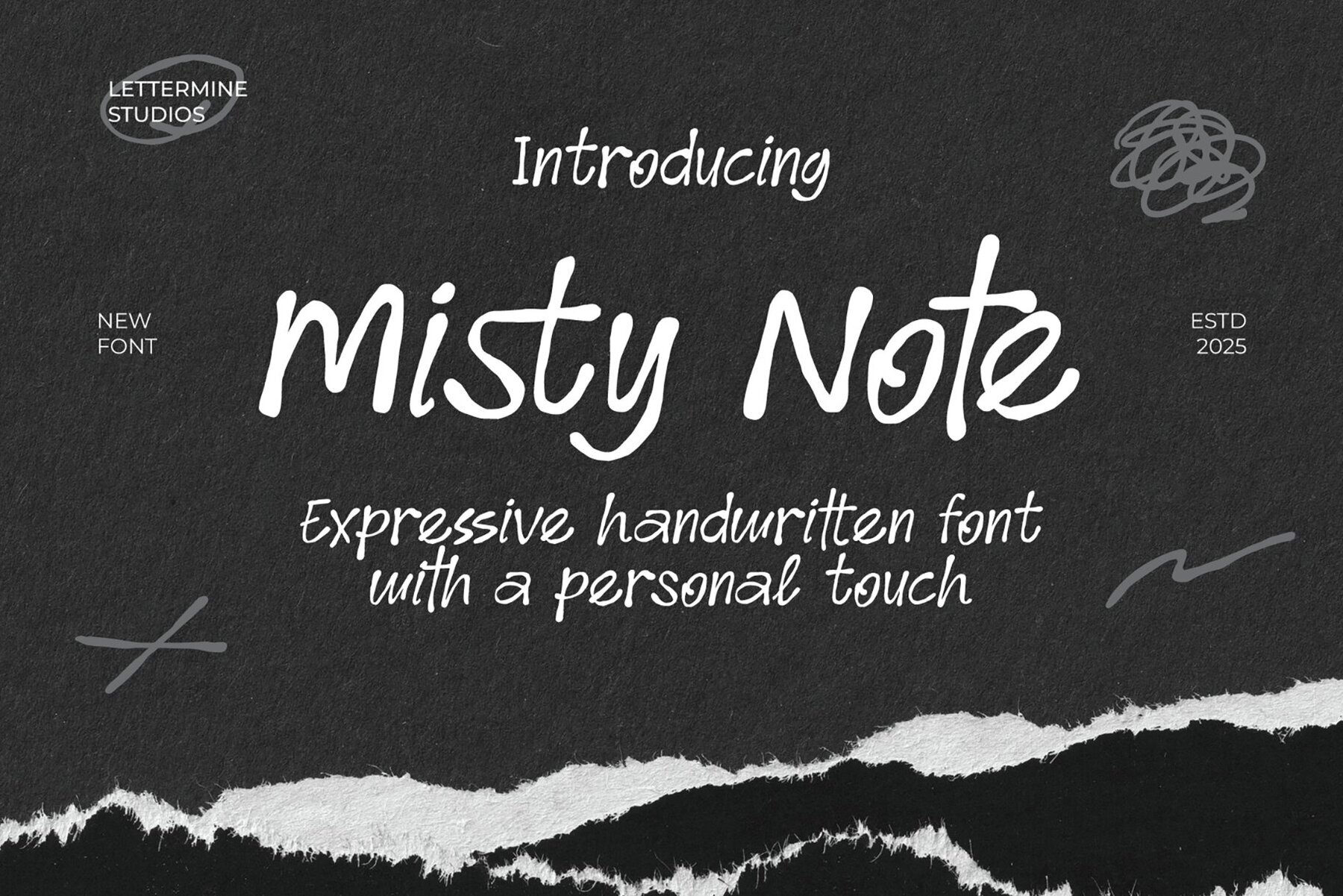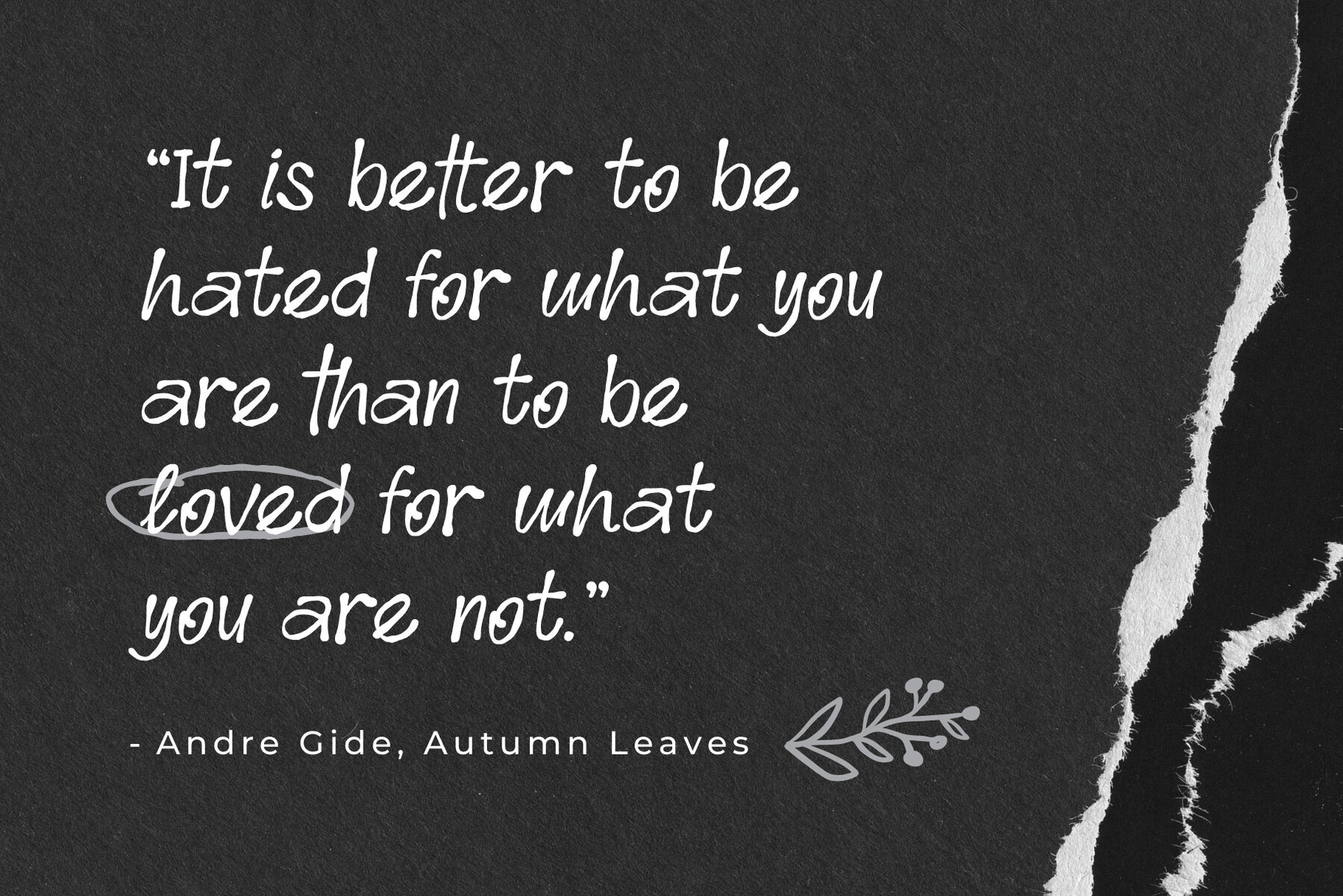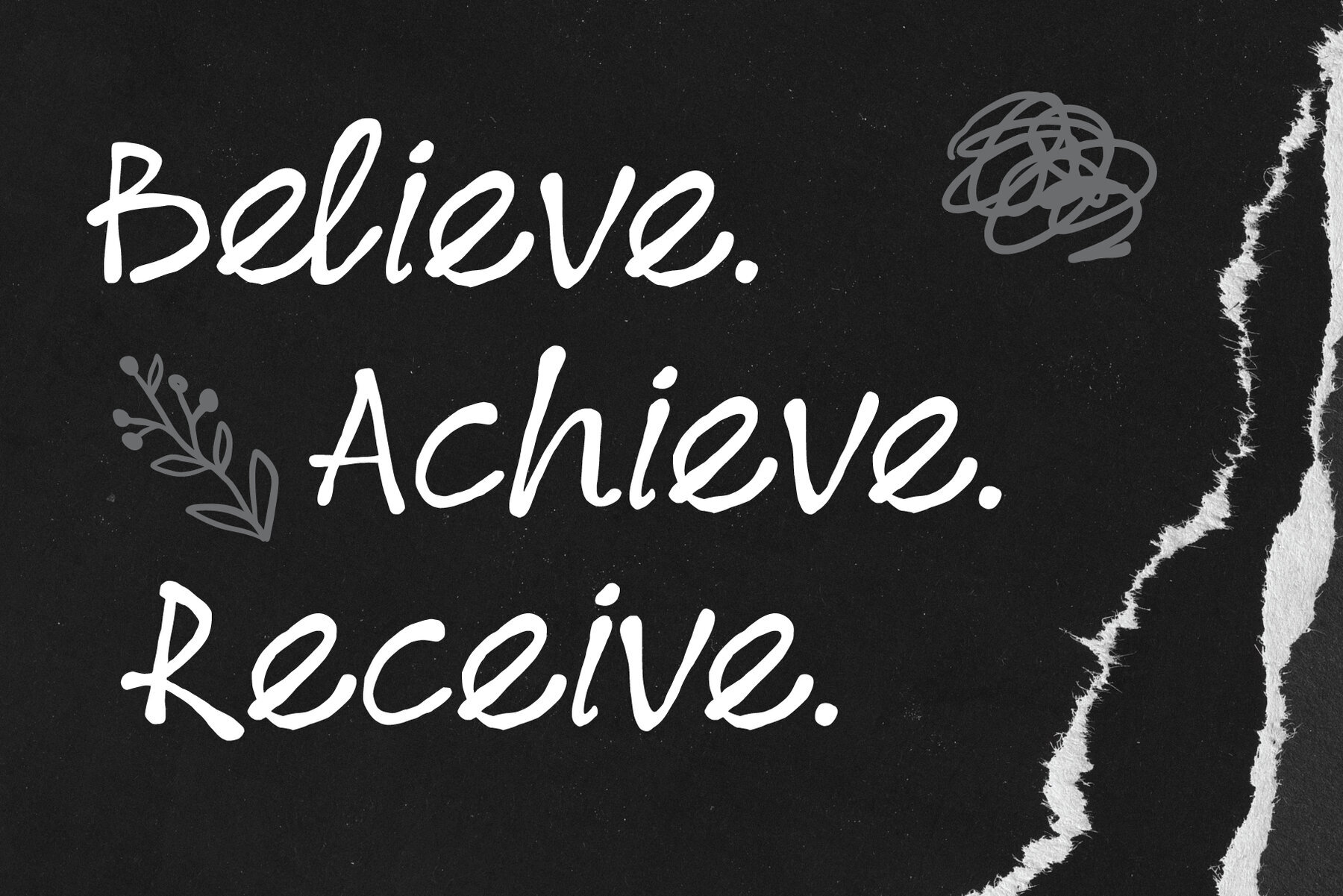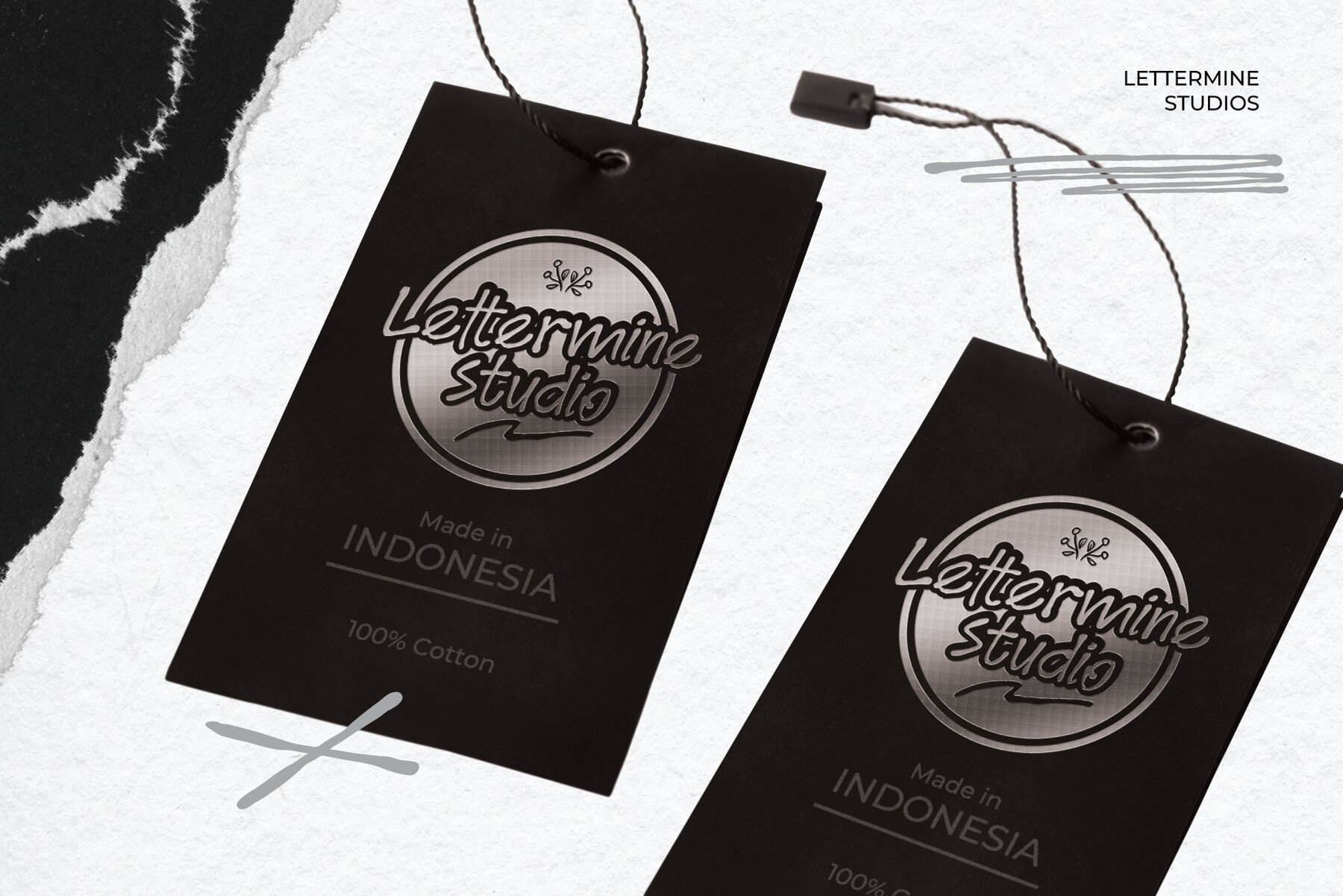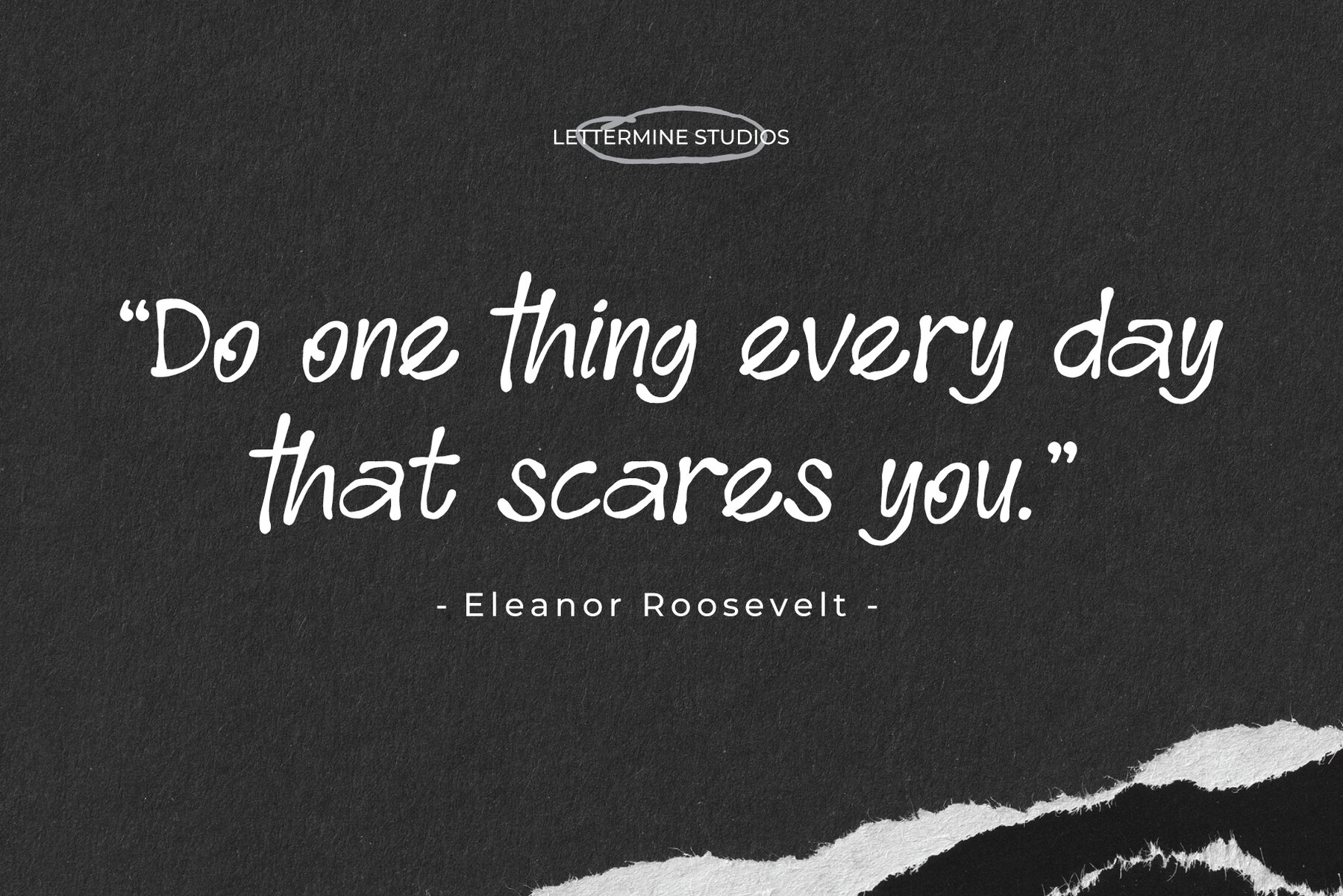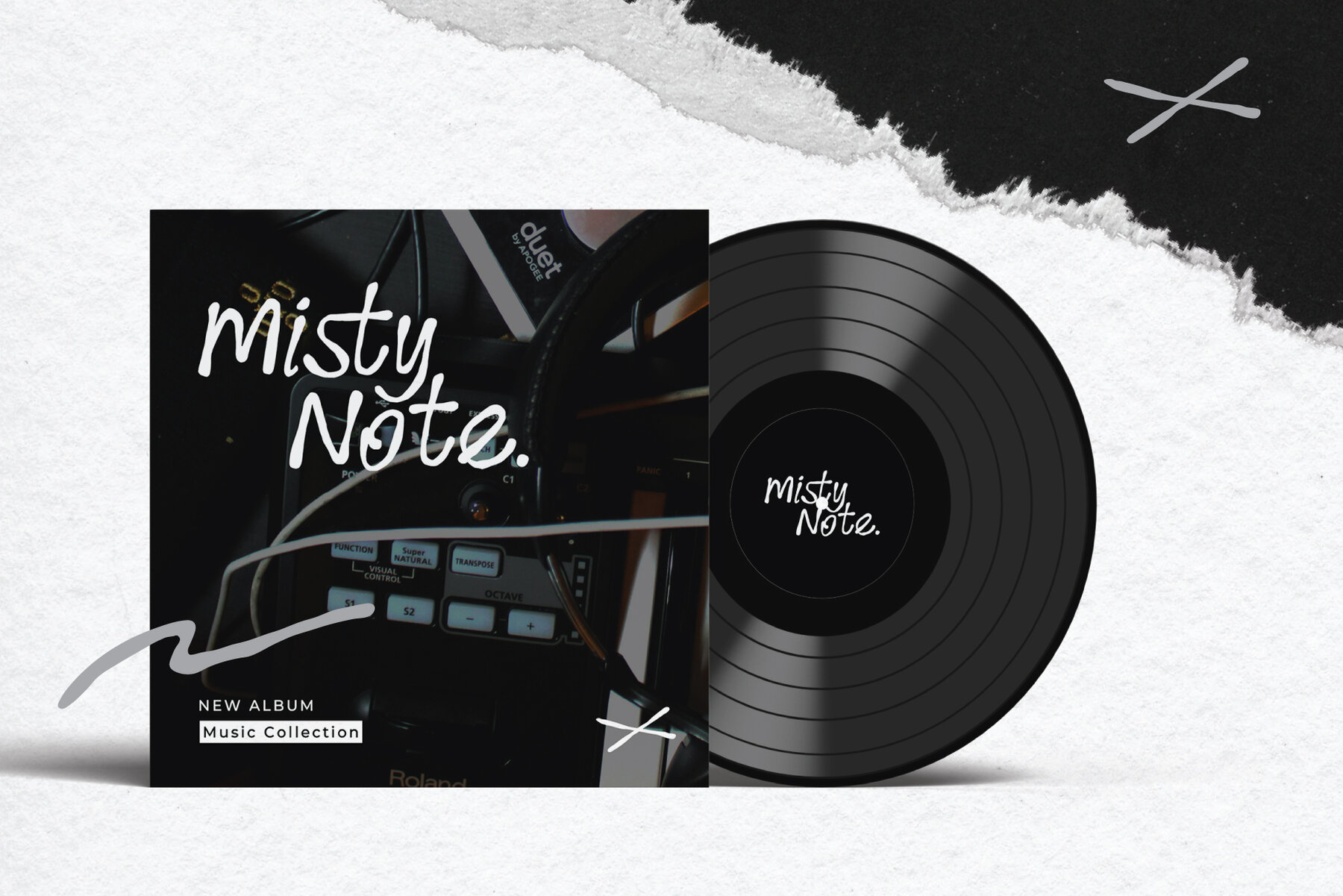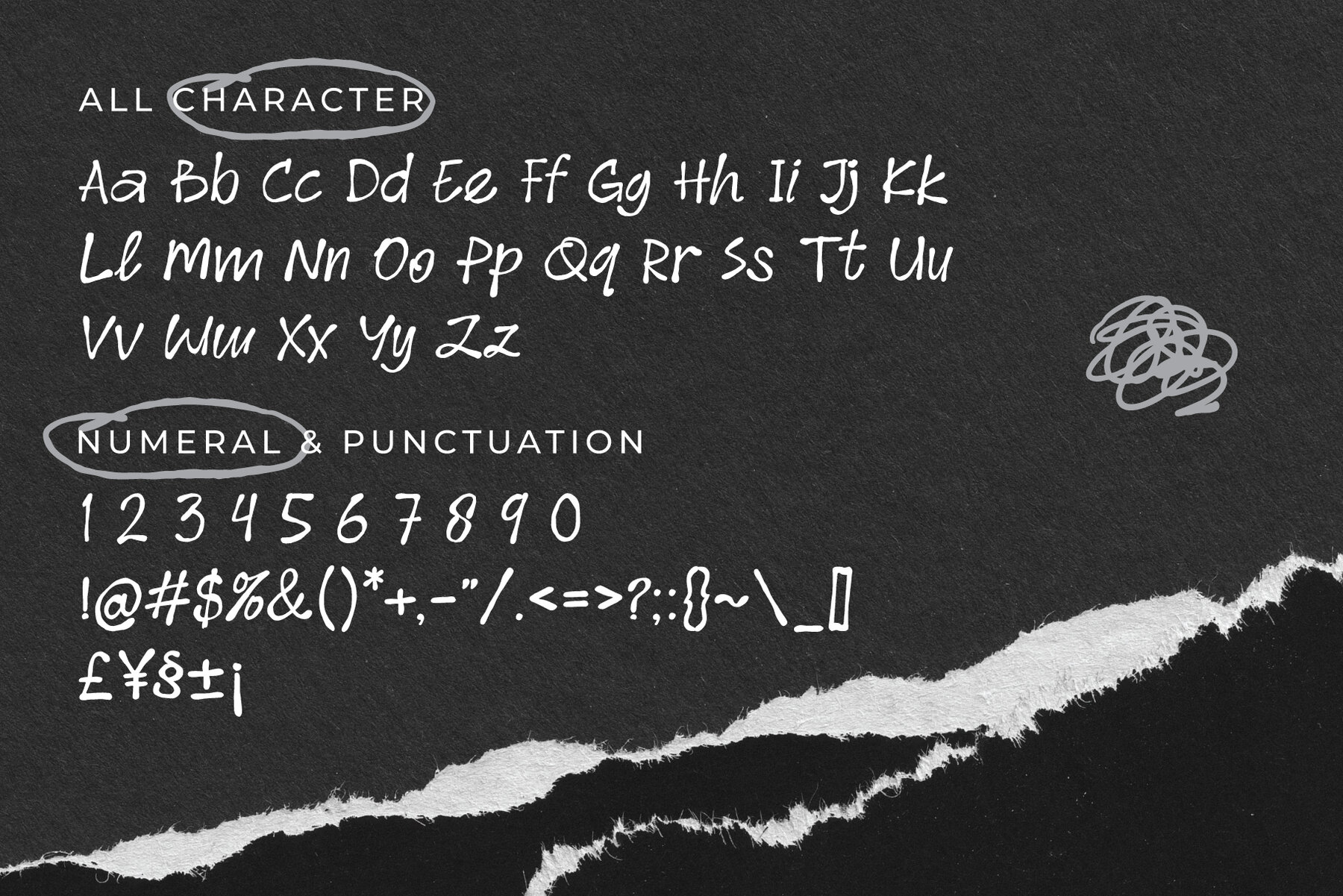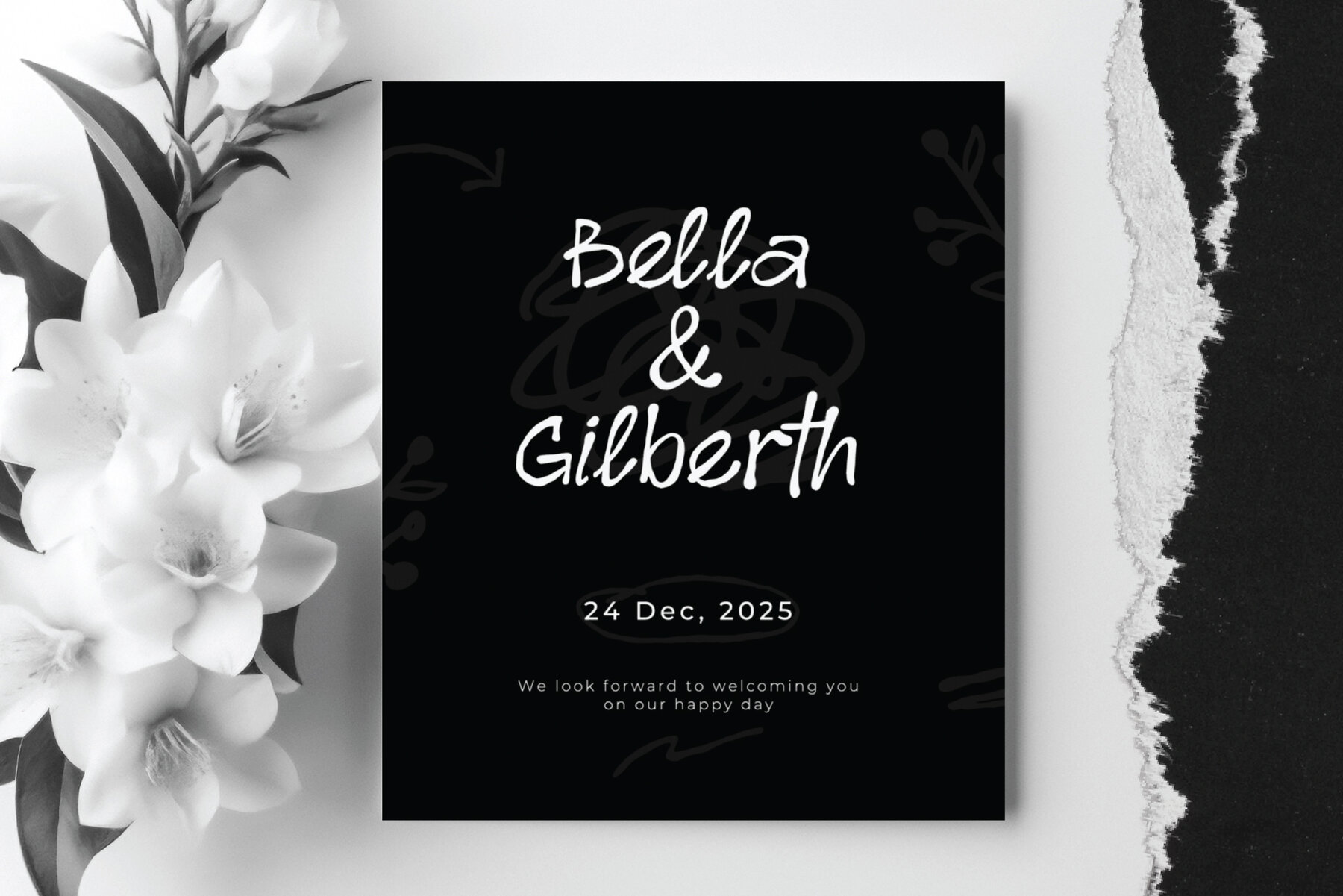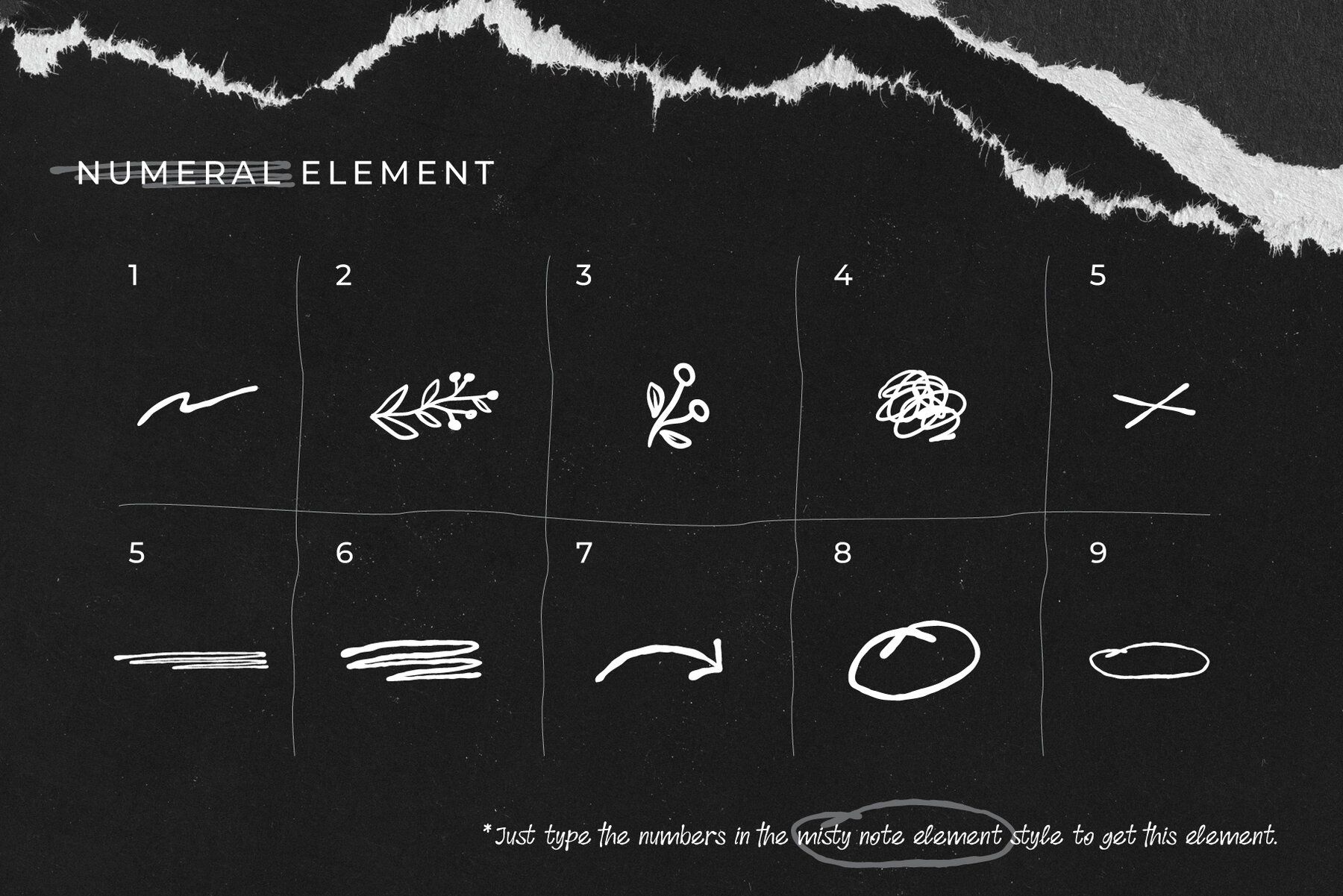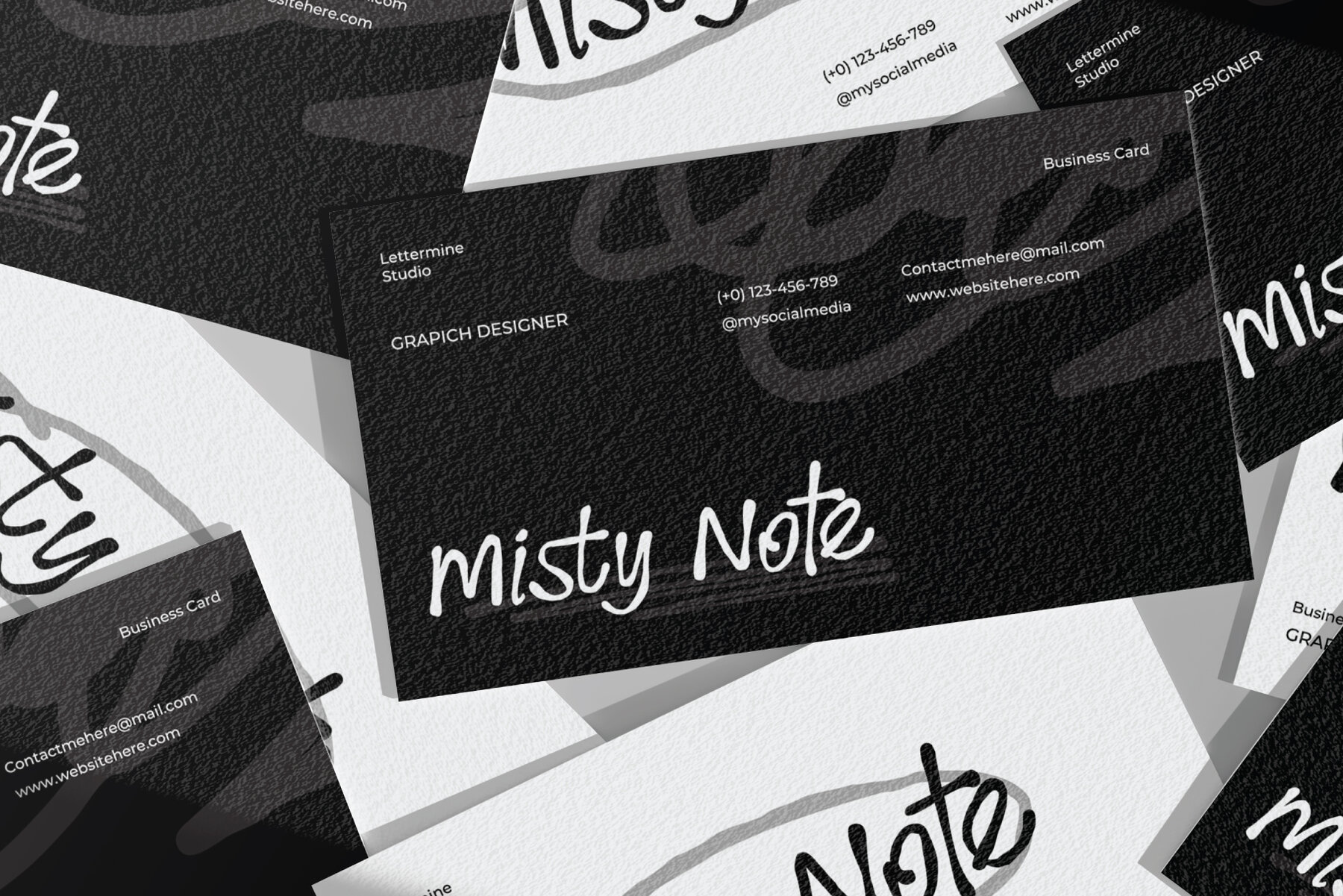
Misty Note Font
Misty Note is a delightful handwritten font that embodies the warmth and charm of personal writing. Its fluid strokes and natural rhythm bring an authentic and heartfelt feel to any design. Whether you're crafting quotes, invitations, packaging, or branding, Misty Note offers casual elegance and a human touch that elevates your creative projects. Add the beauty of handwritten expression to your designs with Misty Note, infusing them with a genuine touch of sincerity.Misty Note Handwritten Font